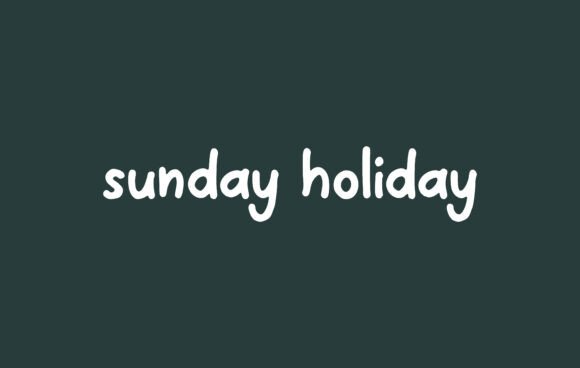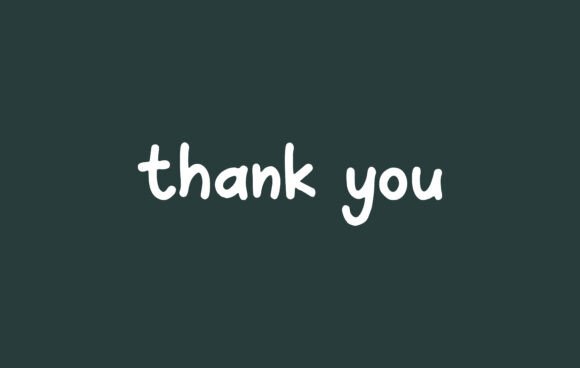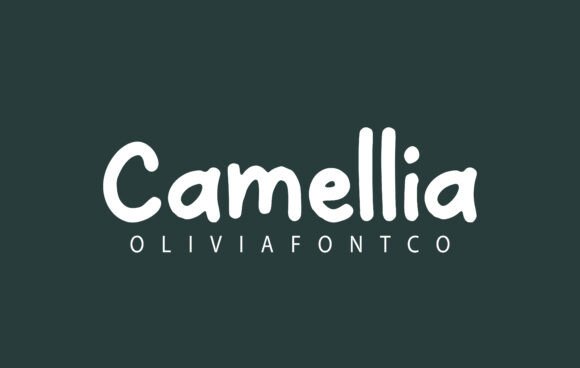
The Camellia Font: A Romantic Touch for Your Creative Projects
I’ll never forget the time I was working on a wedding invitation design project, and my client asked for a font that was elegant, yet playful. I scoured the internet, trying out font after font, but nothing seemed quite right. That was until I stumbled upon the Camellia font. With its authentic handwritten style and romantic touch, it was love at first sight! In this article, I’ll share my experience with the Camellia font, its features, and how to make the most of it in your creative projects.
An Honest Review of Camellia Font
• ✨ The Camellia font has a unique, handwritten style that adds a touch of elegance to any design.
• ✅ It’s highly legible, making it perfect for both title and body text.
• ✅ The font is versatile and can be used for a wide range of designs, from magazine headlines to social media graphics, branding, wedding invitations, and more.
While the Camellia font is amazing, there are a few things to keep in mind:
• ⚠️ Some users have reported that the font can be a bit tricky to read in very small sizes. However, this is easily resolved by using a larger font size or adjusting the line spacing.
• 🤔 The font doesn’t have an extensive range of weights, which might limit its use in certain designs that require a bold or light font.
3. Experiment with the font’s OpenType features, such as ligatures and stylistic alternates, to add more personality to your design.
The Story Behind Camellia Font
The Camellia font was designed by a team of typographers who wanted to create a font that was both elegant and approachable. Inspired by traditional handwritten scripts, they crafted a font that would add a touch of romance to any design. With its unique character and versatility, the Camellia font has become a favorite among designers and crafters.
A: The Camellia font is perfect for designs that require a romantic touch, such as wedding invitations, social media graphics, branding, and magazine headlines.
A: Yes, the Camellia font is highly legible, making it perfect for both title and body text.